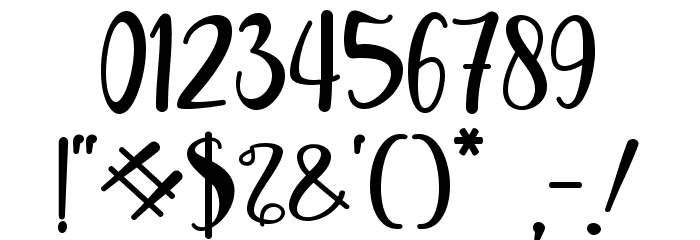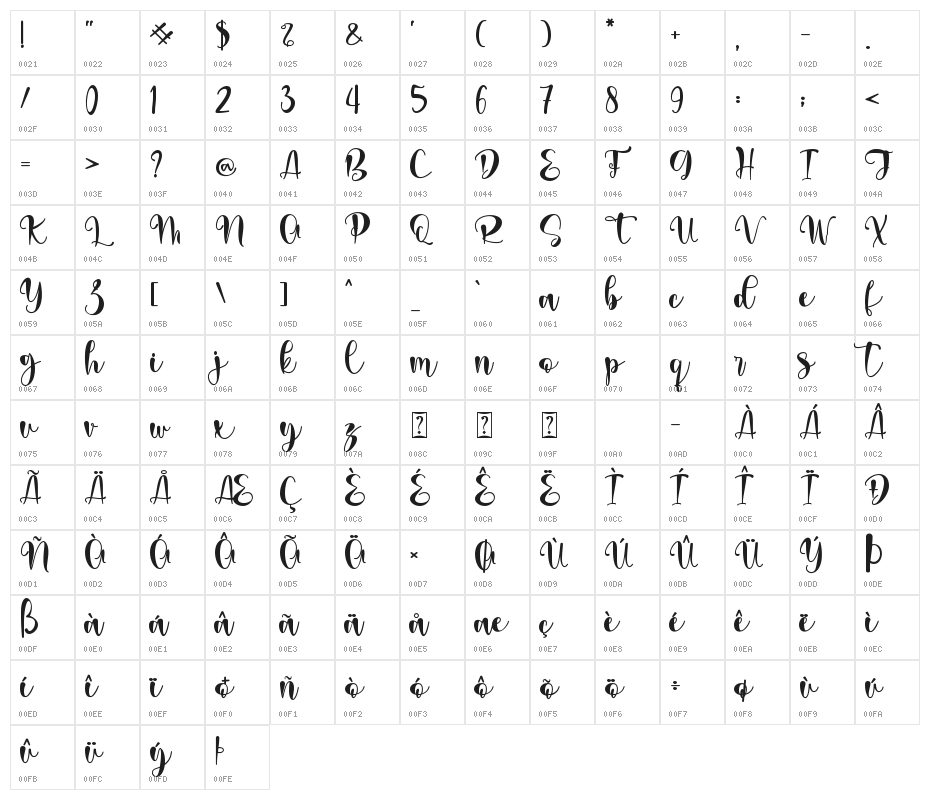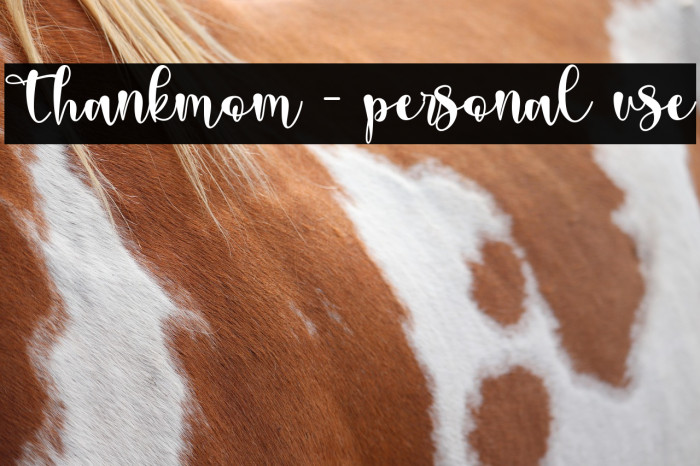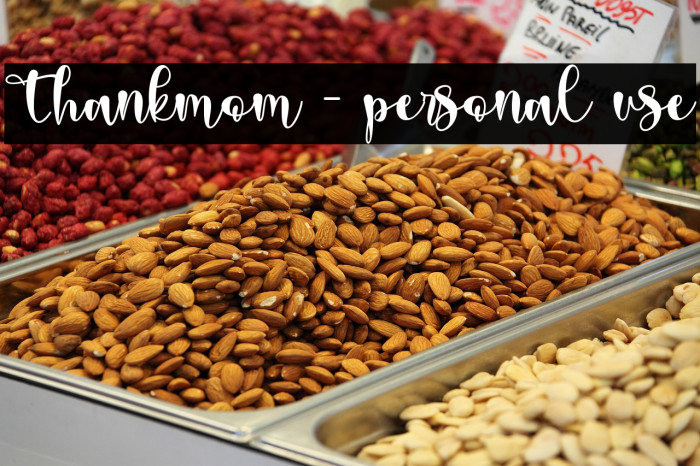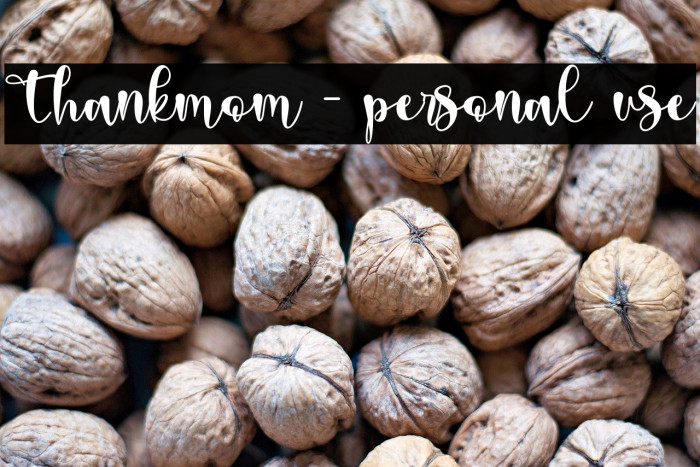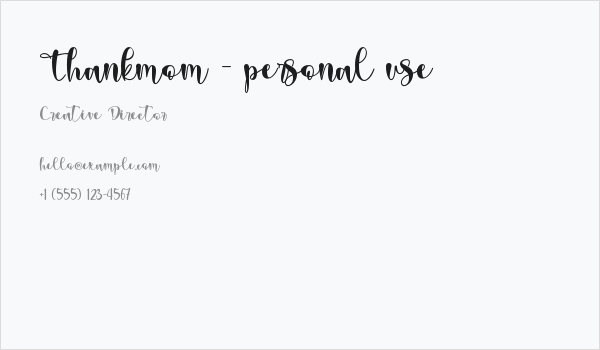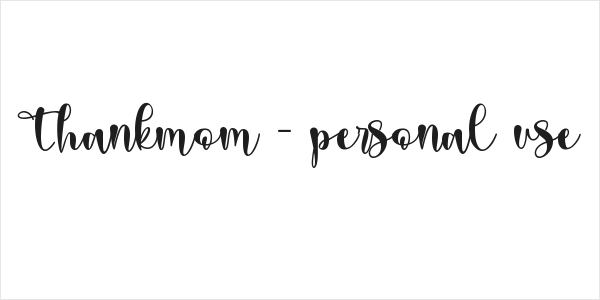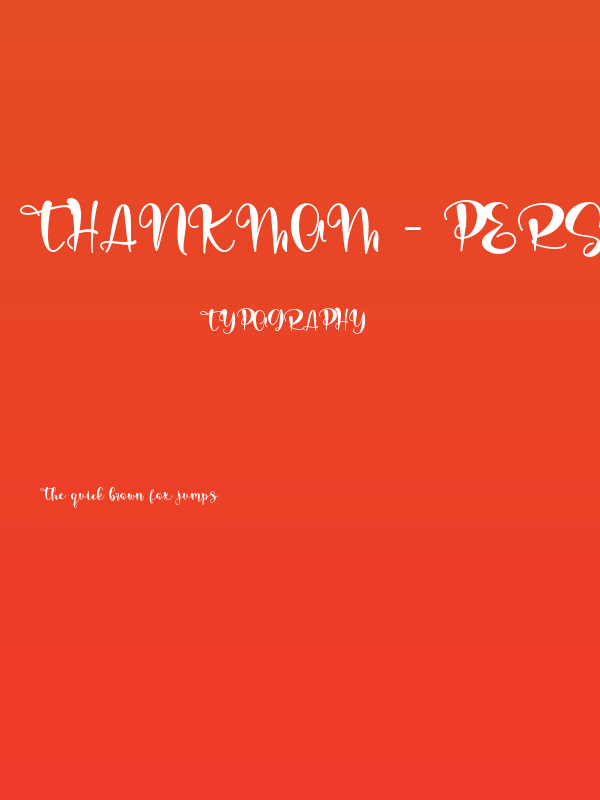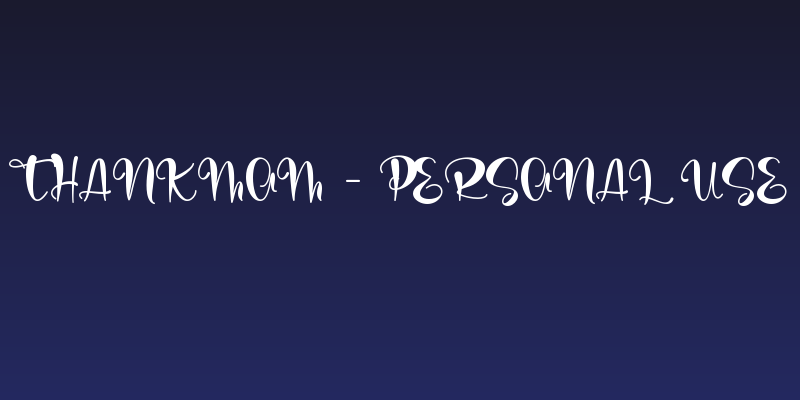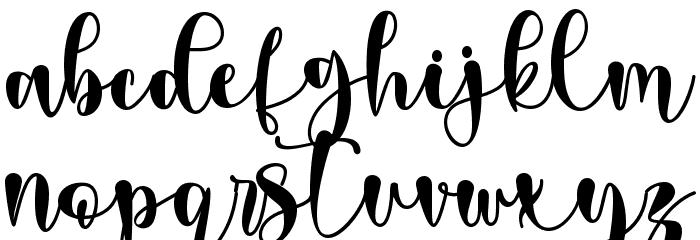
This font features a playful and elegant script style with a handwritten appearance. The letters are characterized by their flowing, cursive forms, with some letters featuring loops and swirls that add a whimsical touch. The uppercase letters are bold and prominent, while the lowercase letters maintain a consistent flow, making it suitable for creative and decorative purposes. The numbers and special characters are designed to match the overall style, ensuring a cohesive look across all text elements. This font is ideal for projects that require a personal and artistic touch.
| Proposed Projects | Ideal for wedding invitations, greeting cards, logos, and branding materials that require a personal and artistic touch. |